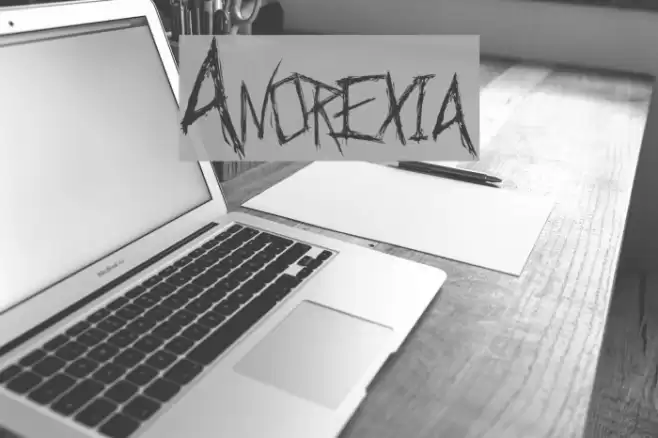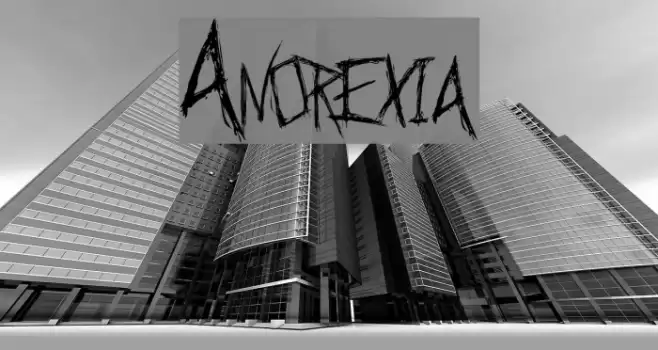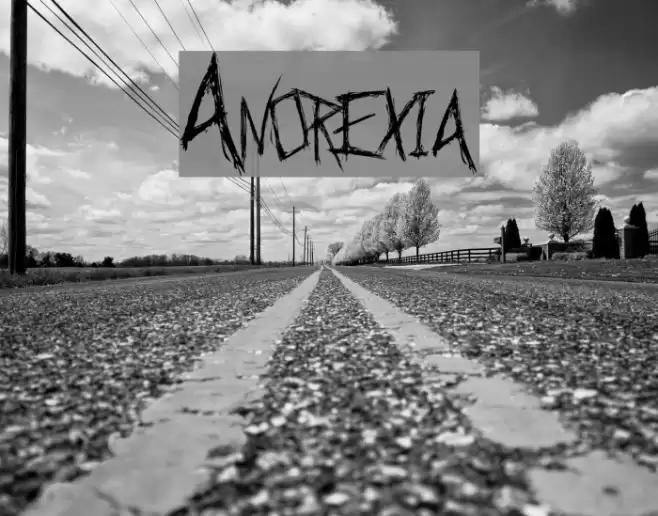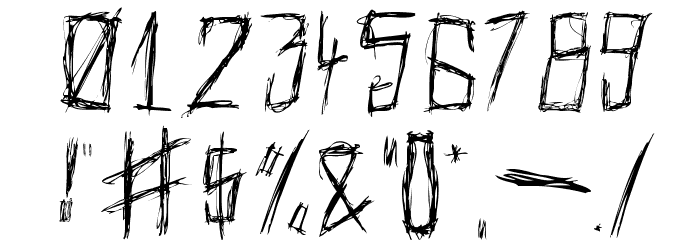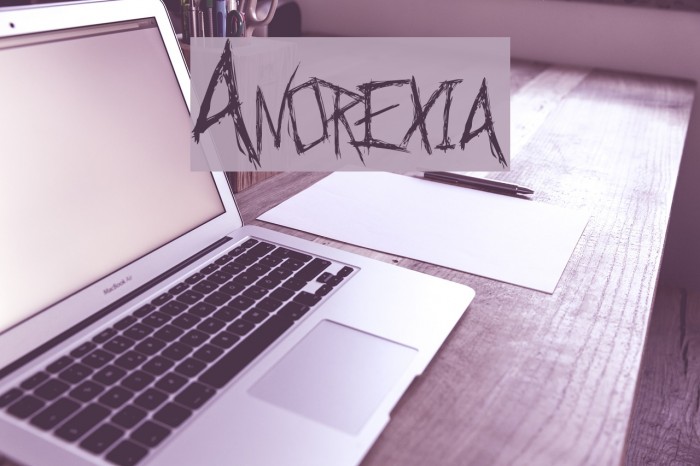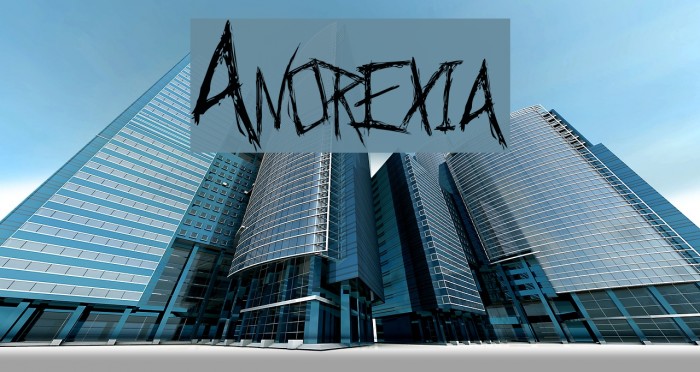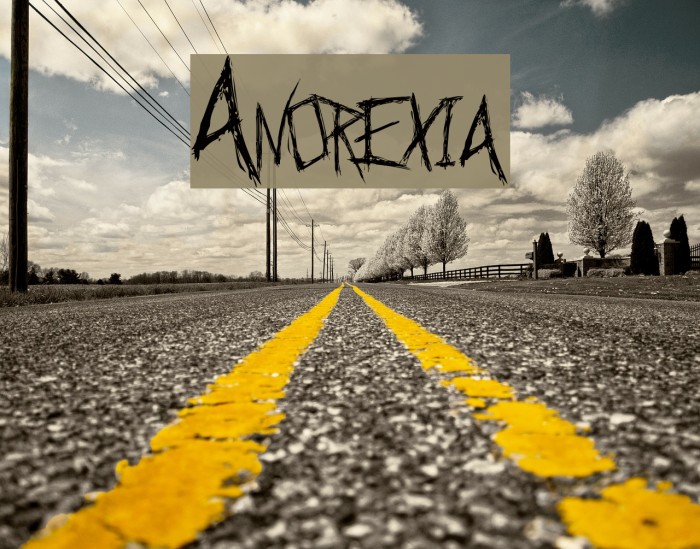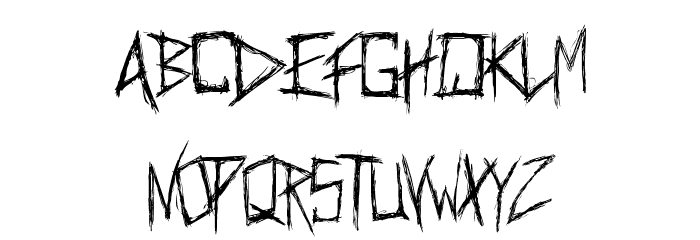
Anorexia Font
Anorexia Description
This font exhibits a highly distressed and chaotic appearance, characterized by irregular, jagged strokes that create a sense of urgency and raw energy. The letters are unevenly formed, with varying line thicknesses that contribute to its edgy and rebellious style. The uppercase and lowercase letters maintain a consistent theme of disarray, while the numbers and special characters follow suit with their own unique, erratic forms. This font's design is reminiscent of hand-drawn sketches, giving it a gritty, urban feel that stands out in any context.
A chaotic, distressed font with jagged, irregular strokes and a rebellious style from Uncategorized fonts.
- Proposed Projects: Ideal for projects requiring a raw, edgy aesthetic such as album covers, streetwear branding, or horror-themed graphics.
- Character Spacing: Tight
- Use Case: Headlines, Posters, Branding